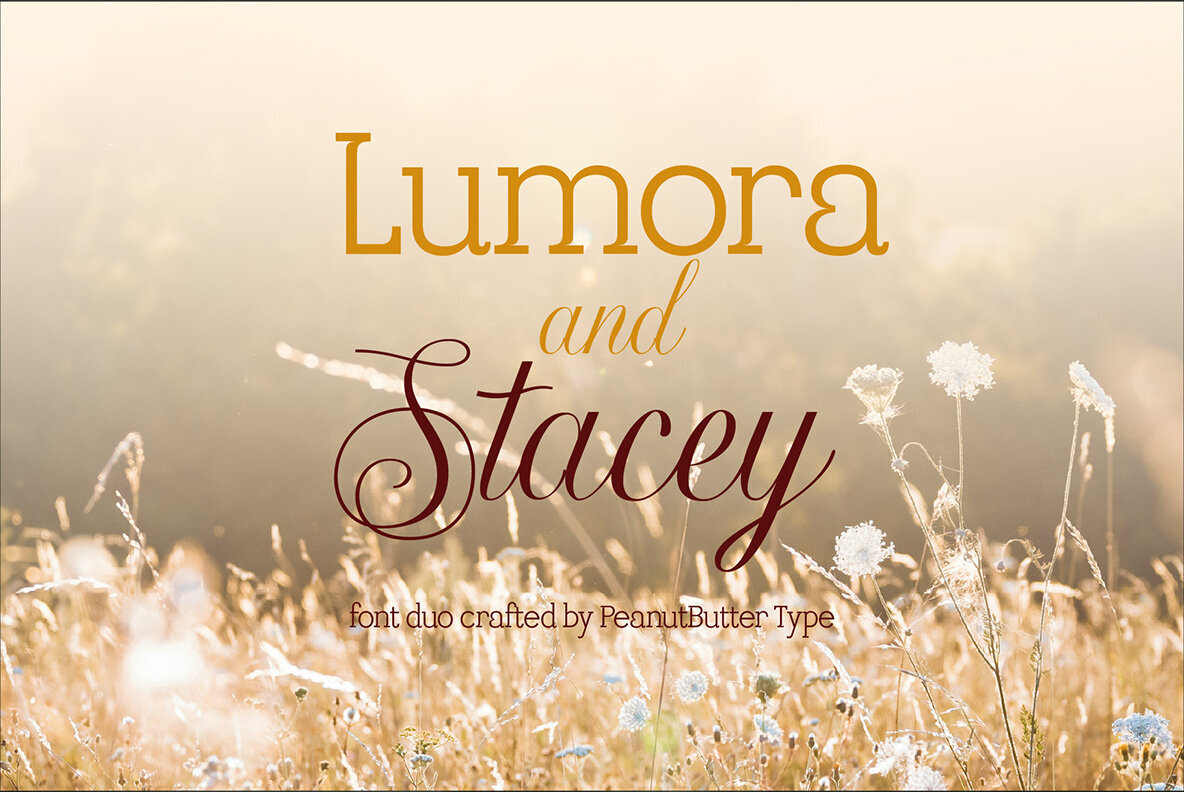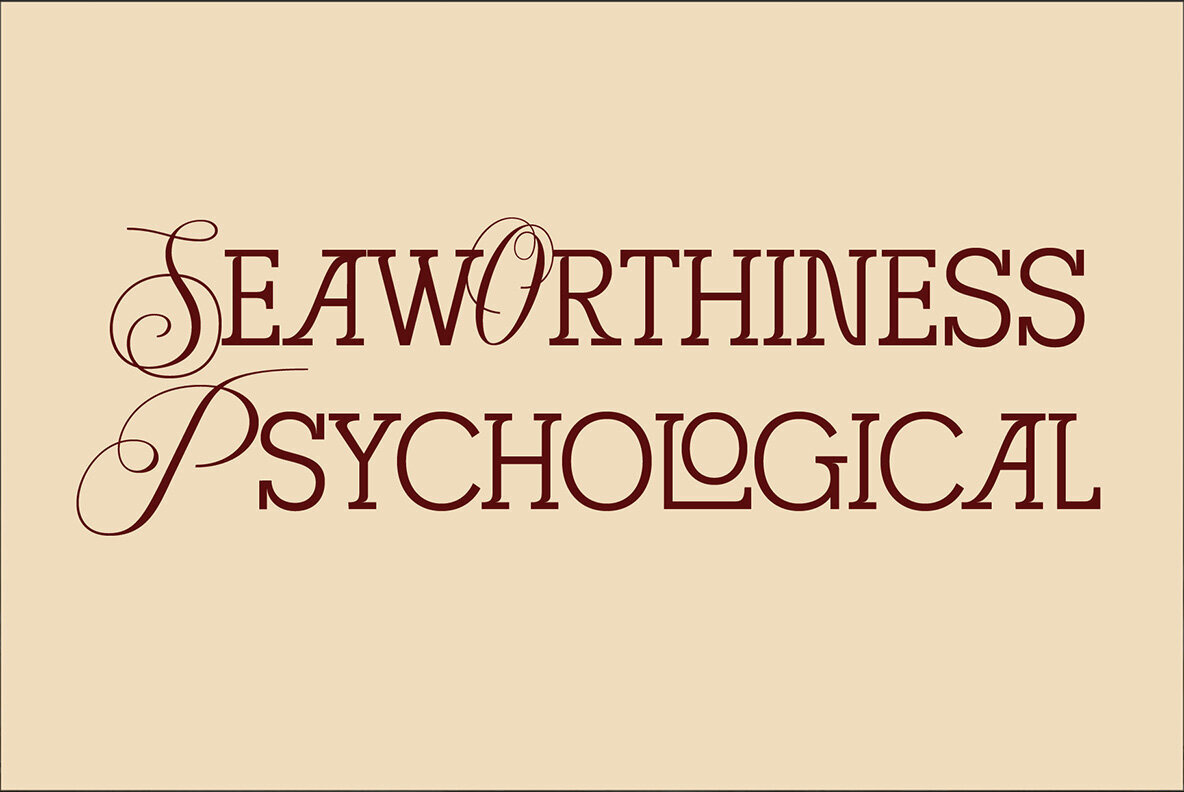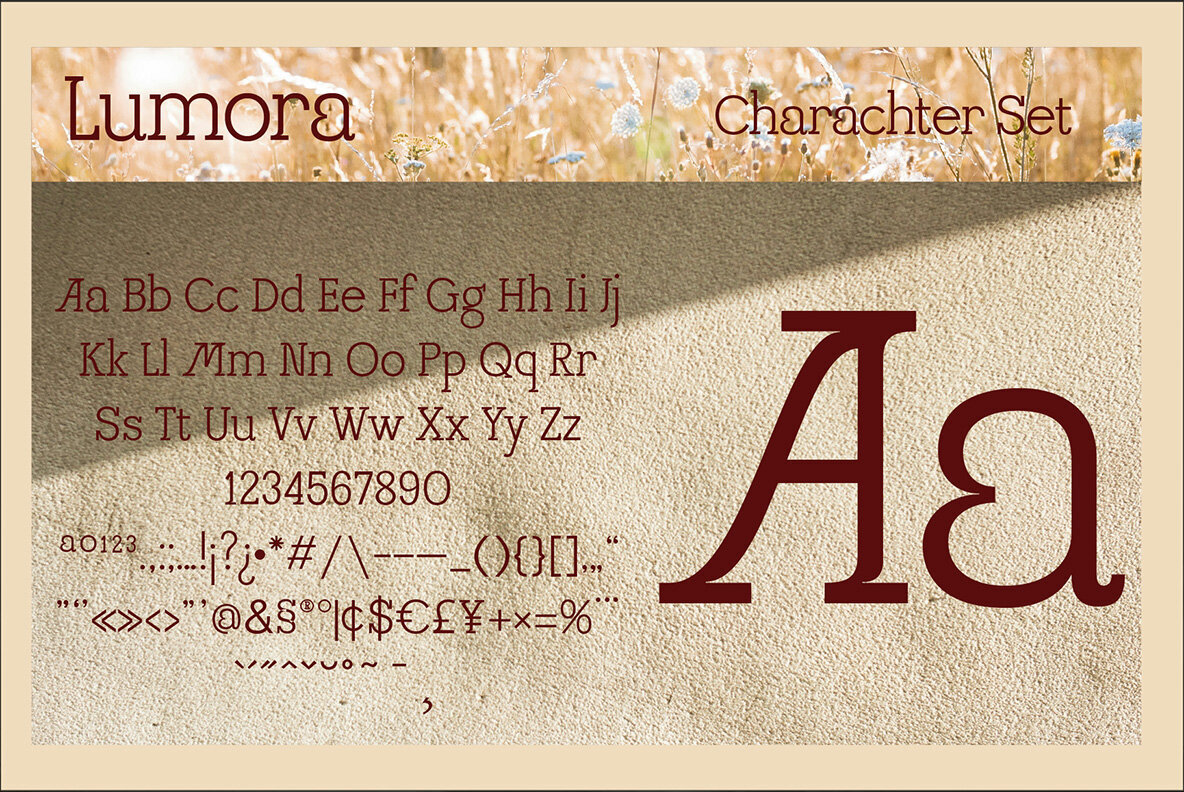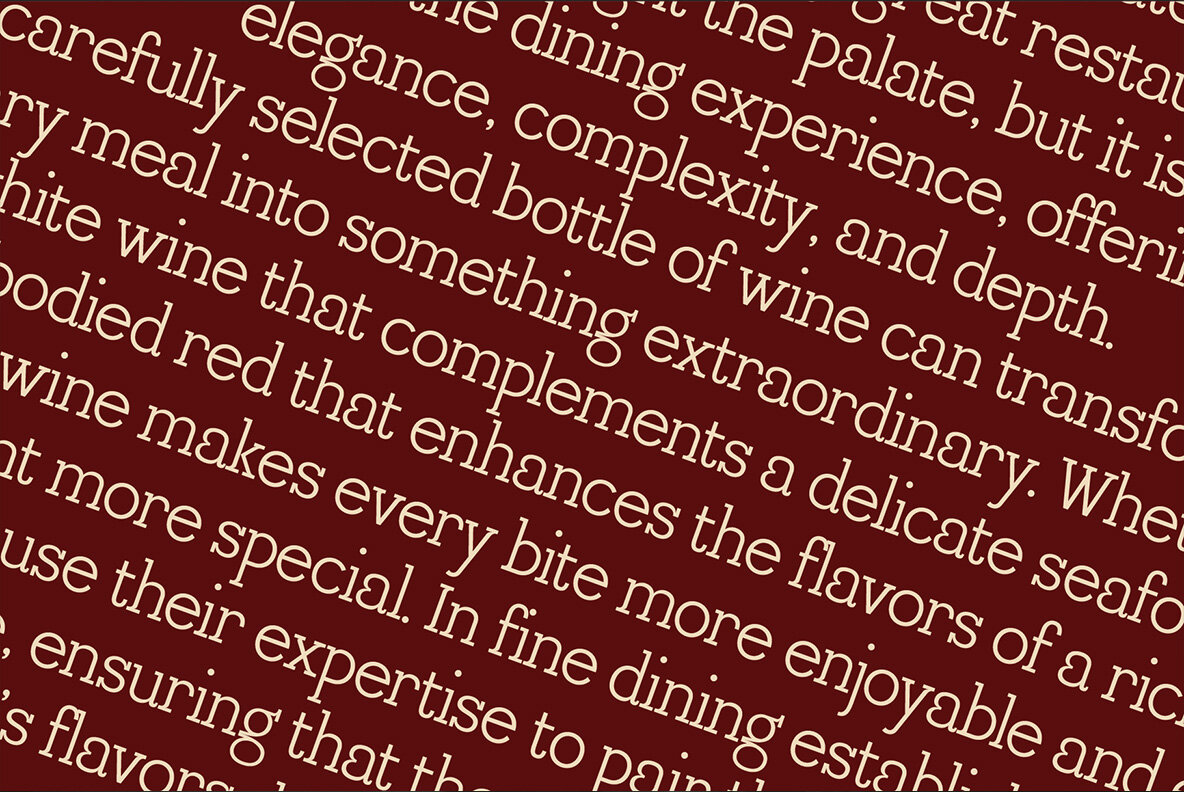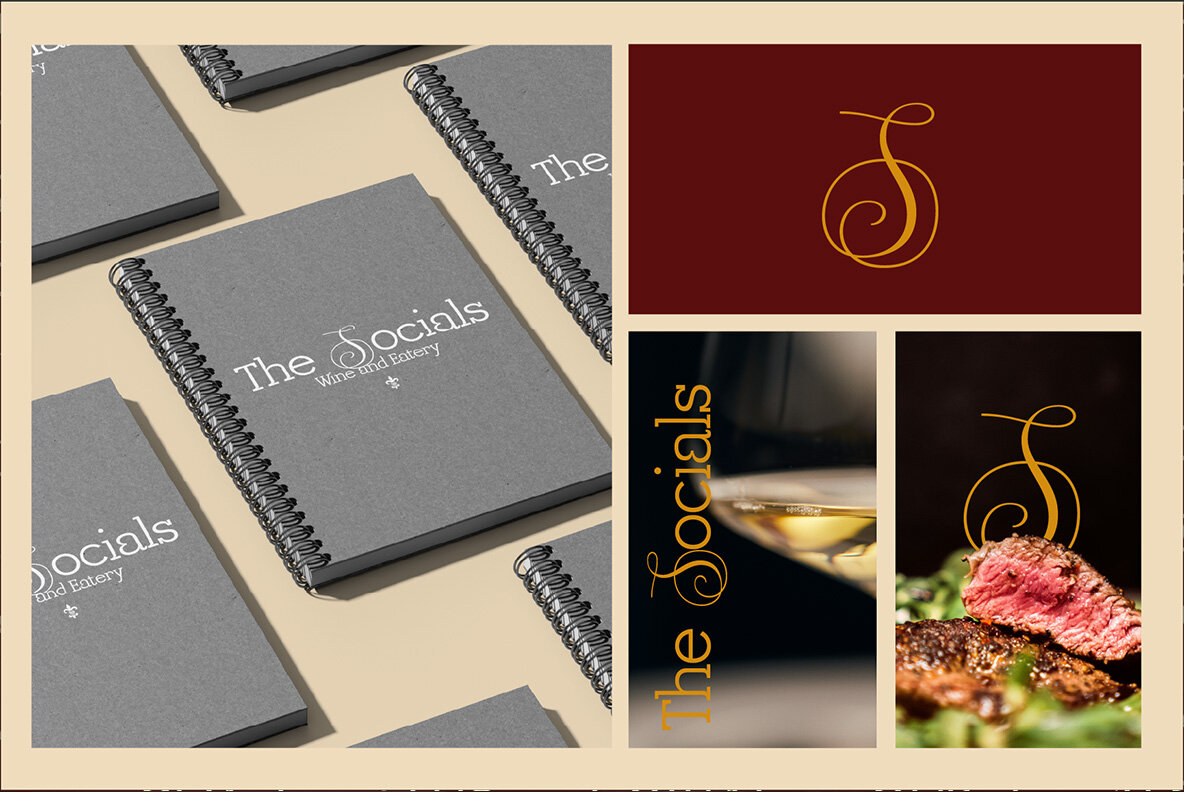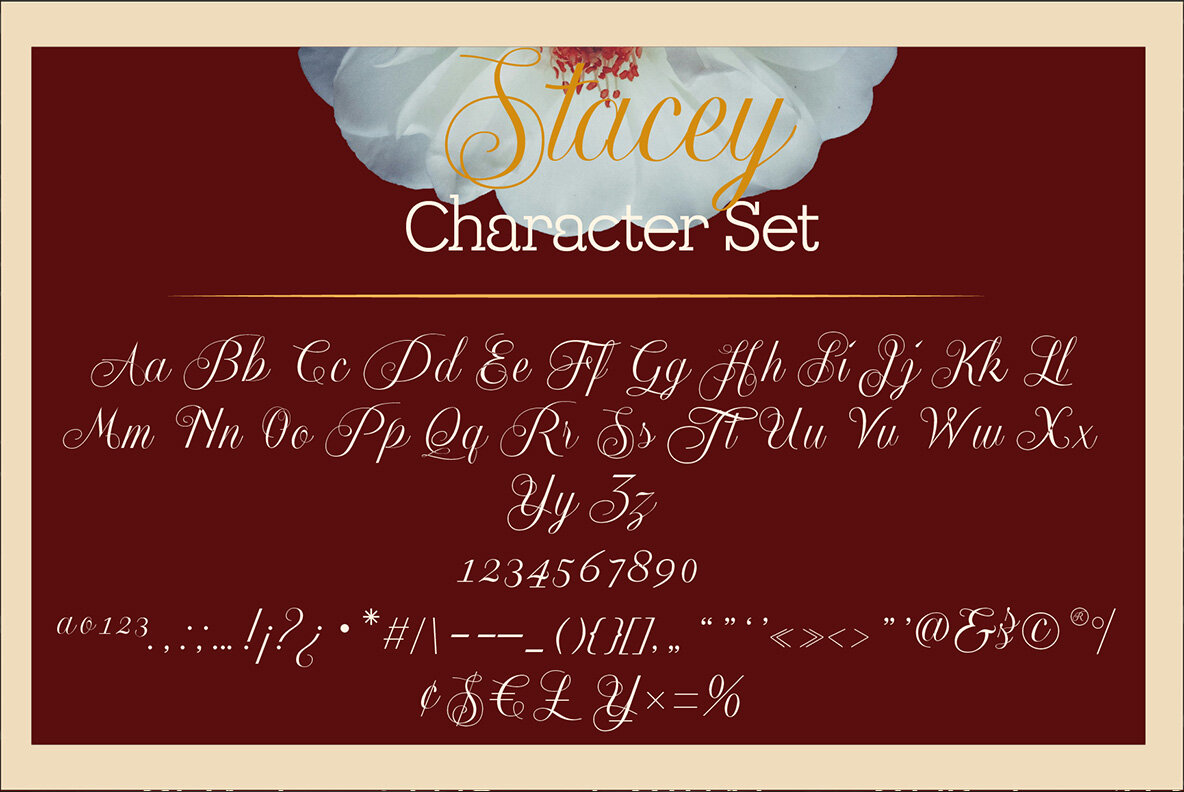
Lumora and Stacey Font
Lumora and Stacey form a dynamic font duo perfect for bringing elegance and distinct personality to your projects. Lumora is a modern serif font, known for its sleek, sophisticated design that suits a professional aesthetic. In contrast, Stacey offers a charming script style with graceful, hand-lettered fluidity. Together, these fonts complement each other, making them ideal for diverse applications, from branding and invitations to luxury websites and editorial designs.
This combination allows you to achieve either a contemporary elegant look or an artistic, personal touch in your designs. Whether your focus is on creating a polished professional appearance or adding a touch of artistic flair, Lumora and Stacey serve as versatile tools in your design arsenal.